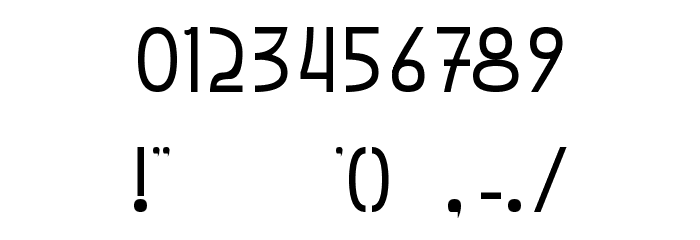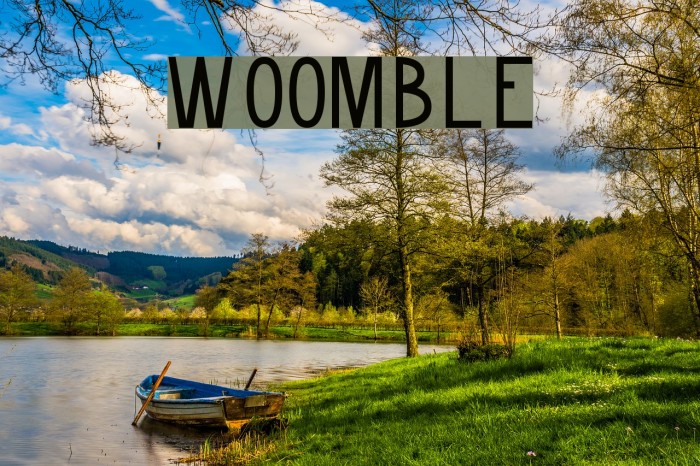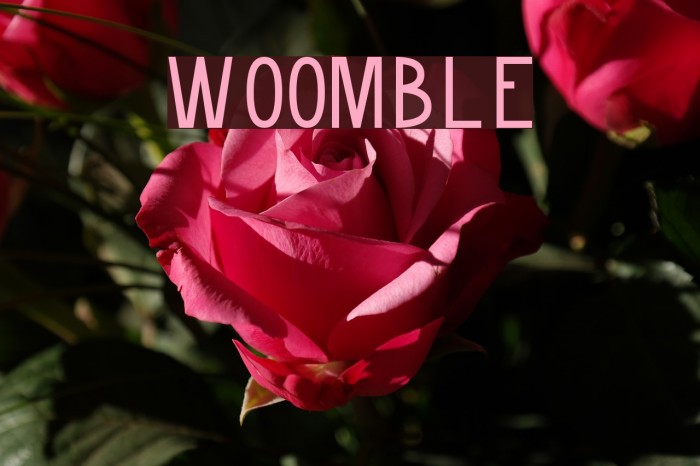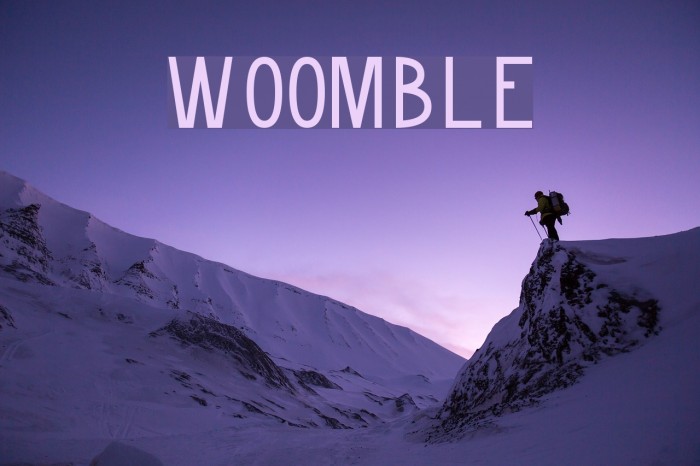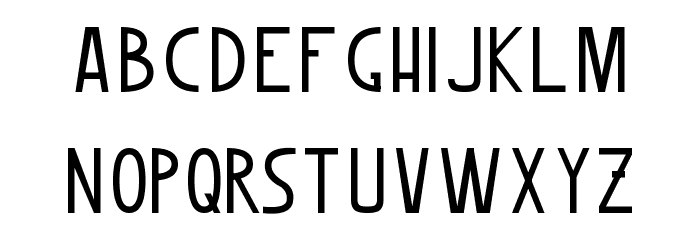
Woomble Font
Woomble Description
This font features a modern, geometric design with clean lines and a slightly condensed appearance. The uppercase letters are uniform in height, with a consistent stroke width that gives a balanced and harmonious look. The lowercase letters maintain the same geometric style, offering a seamless transition between characters. The numerals are clear and legible, matching the overall aesthetic of the alphabet. Special characters are designed with the same attention to detail, ensuring they integrate well with the rest of the font. This font's simplicity and clarity make it versatile for various design applications.
| Use Case | Headlines, Body text, Logos |
| Proposed Projects | Ideal for branding, editorial design, web design, and advertising materials. |